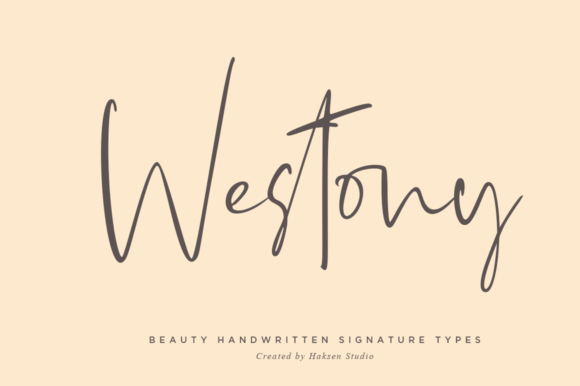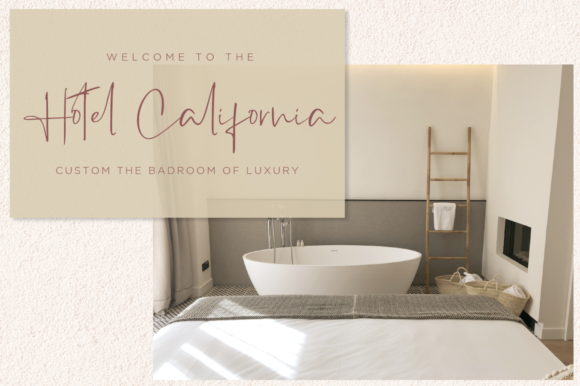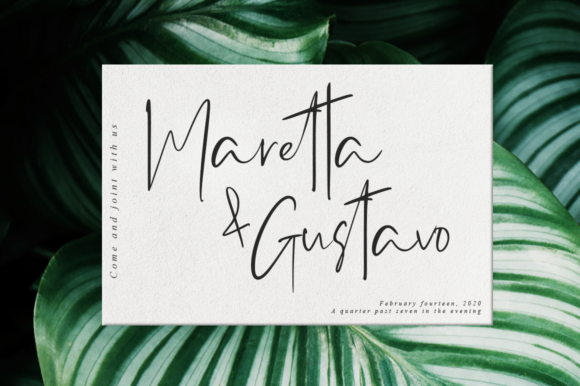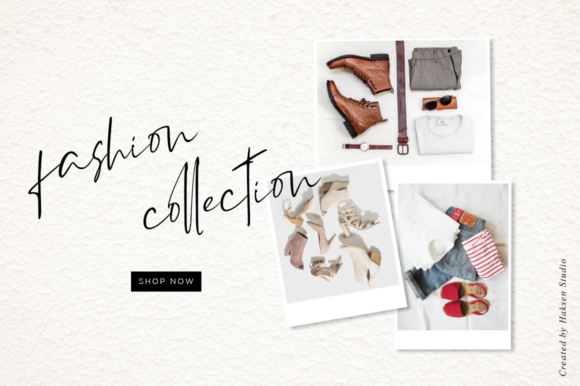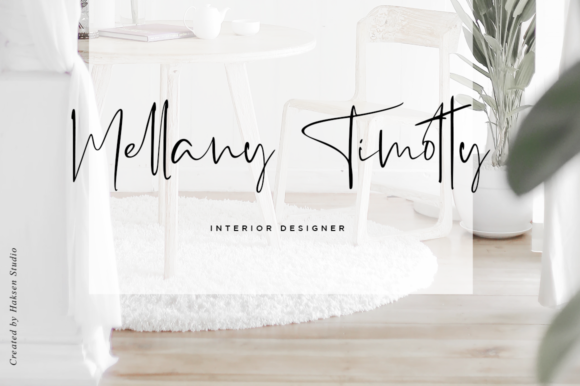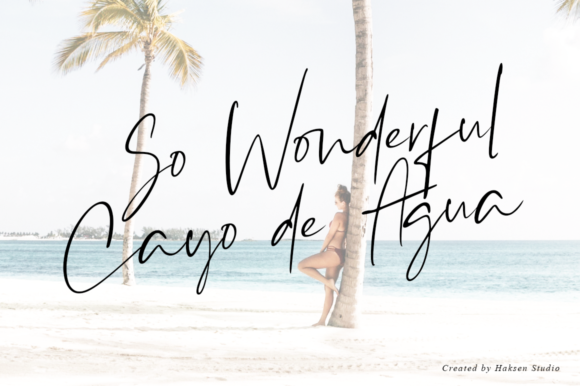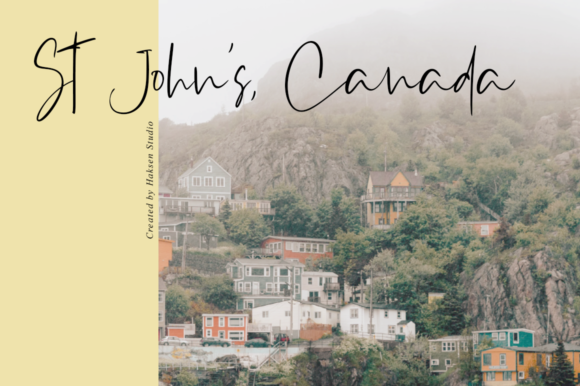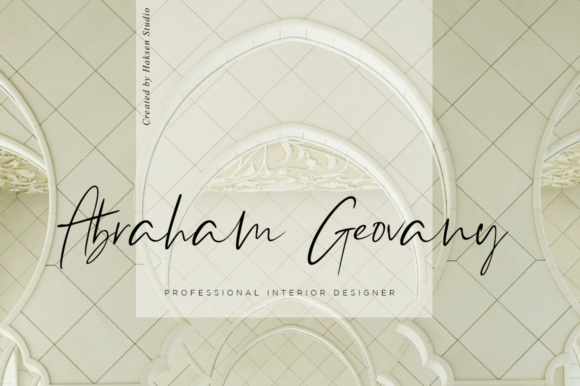
Westony Font
About Westony Font
Westony is a stylish and modern signature font with a casual, yet chic flair. It is perfect for wedding invites, and cards, as well as branding!